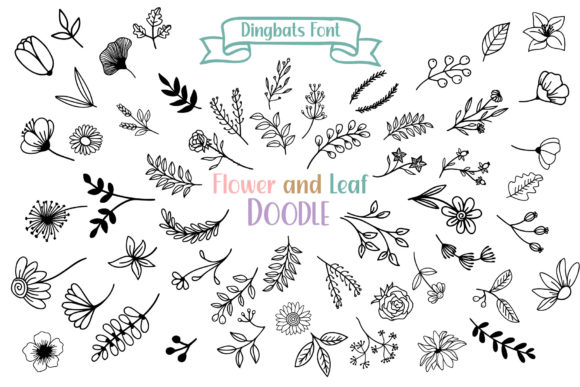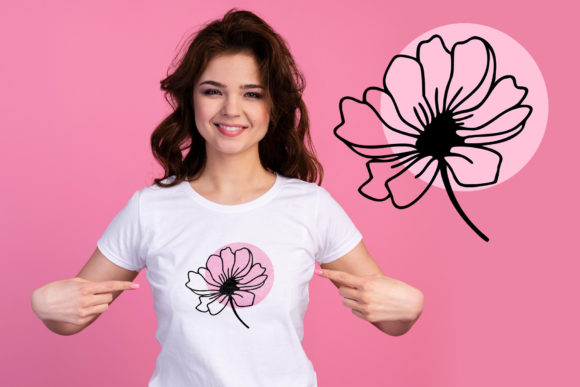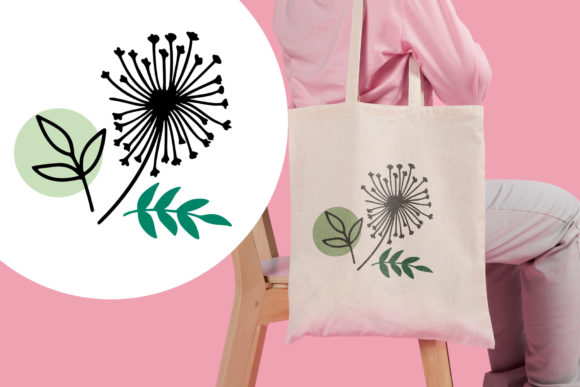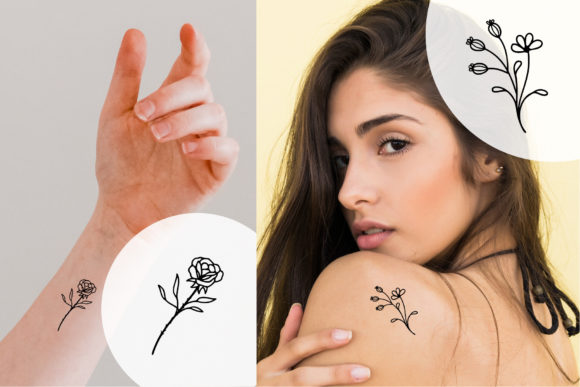
Flower and Leaf Doodle Font
About the Flower and Leaf Doodle Font
Step up your design game with Flower and Leaf Doodle Font, a font that exudes confidence and style. Flower and Leaf Doodle is a useful and delicately designed dingbats font. Add it confidently to your projects, and you will love the results.
Flower and Leaf Doodle excels in projects requiring a light, whimsical touch. It’s ideal for branding related to nature, children’s products, invitations, or decorative elements within larger designs. Use it sparingly in headlines or short bursts of text; its decorative nature makes it unsuitable for body copy or UI elements where readability is paramount.
This font’s playful personality pairs well with clean sans-serif fonts like Open Sans for body text, creating a balanced contrast. For a more sophisticated feel, consider pairing it with a classic serif like Garamond or a modern geometric sans-serif like Montserrat. Avoid pairing it with other highly decorative fonts, as this could lead to visual clutter.
The overall mood is cheerful and friendly, making it perfect for brands seeking a lighthearted and approachable image.
Flower and Leaf Doodle Font Usage Examples
Flower and Leaf Doodle Font Example